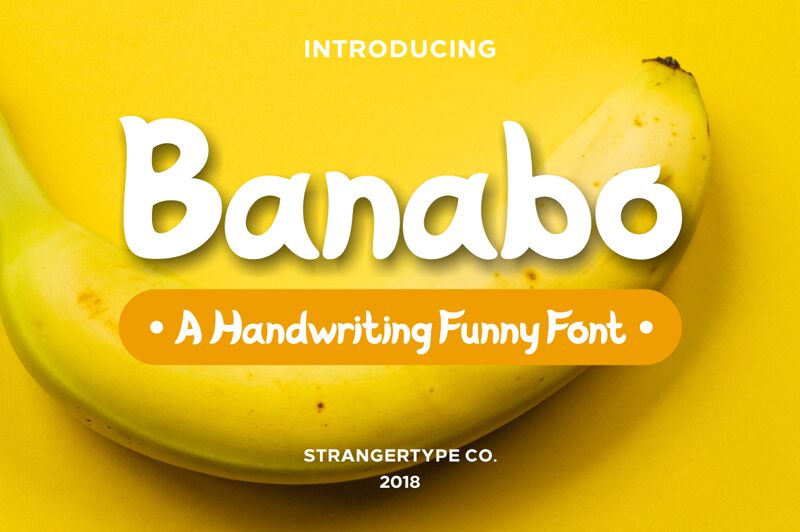
Banabo
Banabo is a bold display font designed by Robbi Azis. Its playful and cartoonish style makes it perfect for projects that need a touch of fun and whimsy. Whether you're designing a children's book, creating a logo for an entertainment brand or crafting social media graphics for a lively startup, Banabo is the perfect font to capture attention with its boldness and charm. This typeface's thick strokes and curves make it stand out on posters, banners, and other large-scale designs. Give your projects that unique touch they deserve with Banabo!